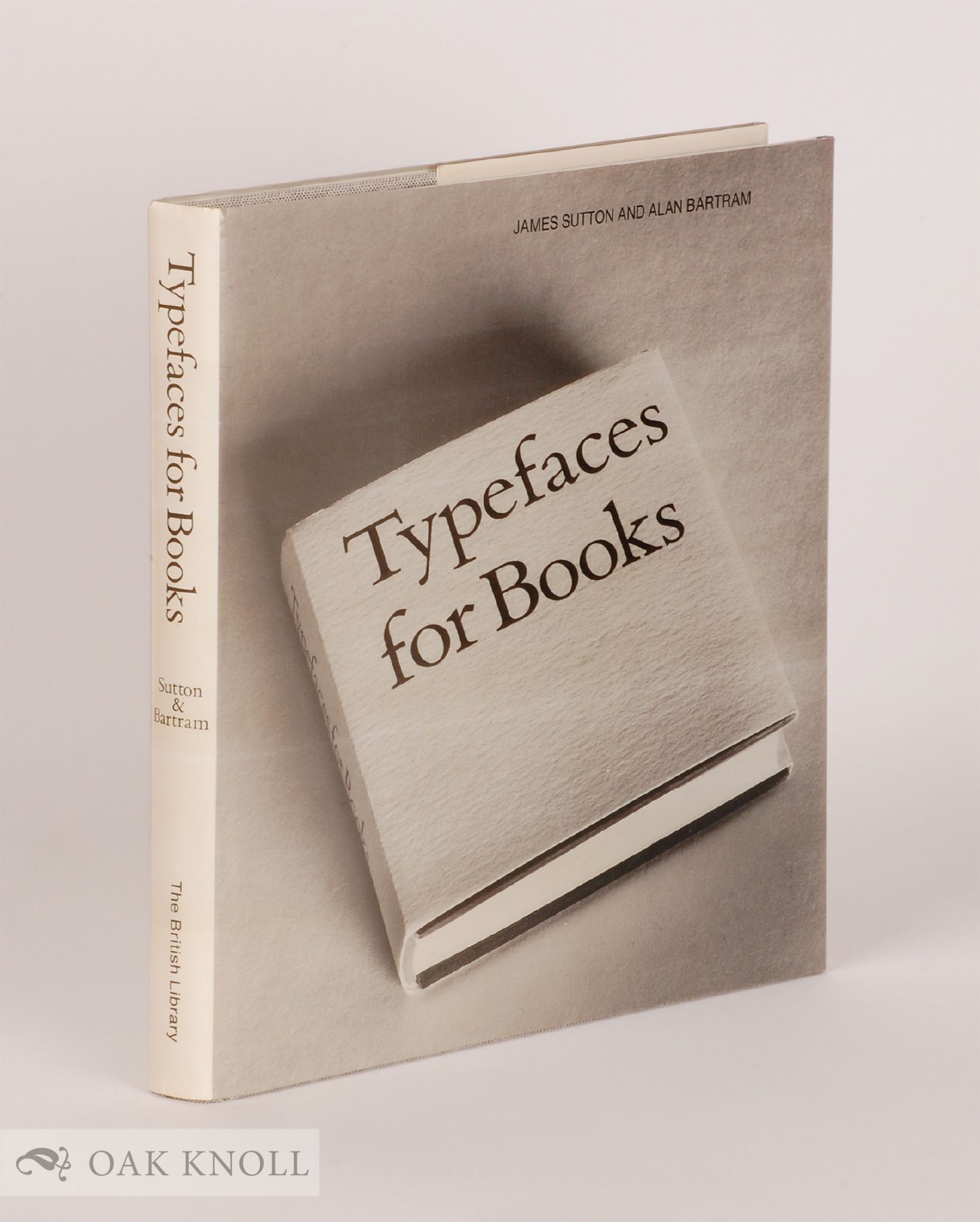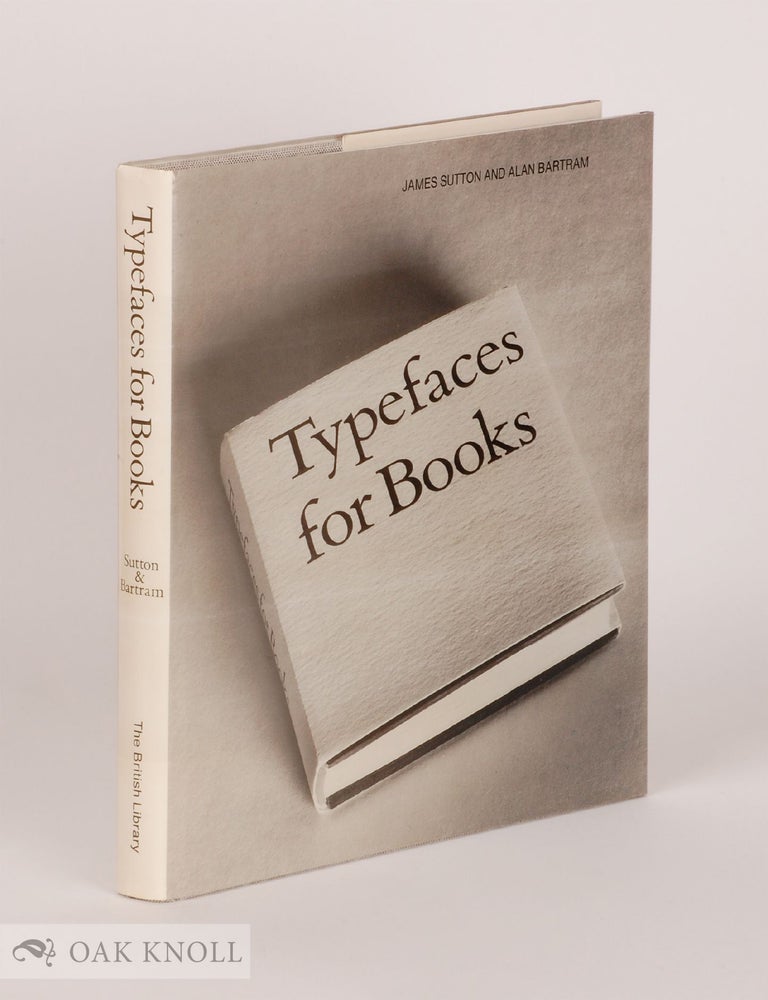
TYPEFACES FOR BOOKS.
First English edition. Fine in fine jacket. Contains specimen settings and complete fonts for over 100 current Monotype and Linotype digitized typefaces. The introductory pages discuss the technical and historical background, type families, and book making. Contains copyfitting tables and a bibliography.